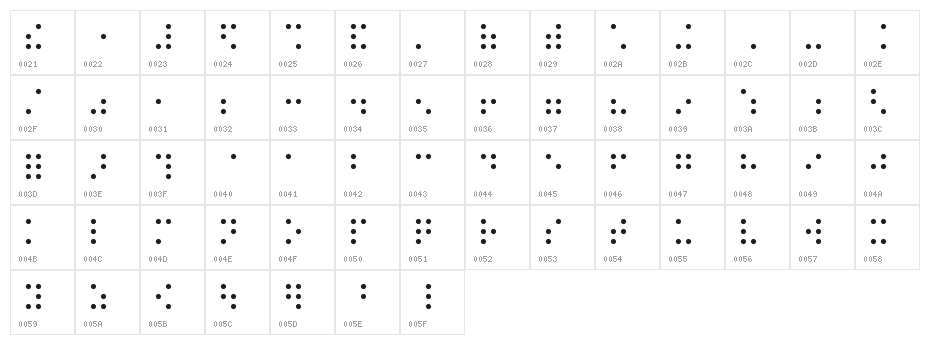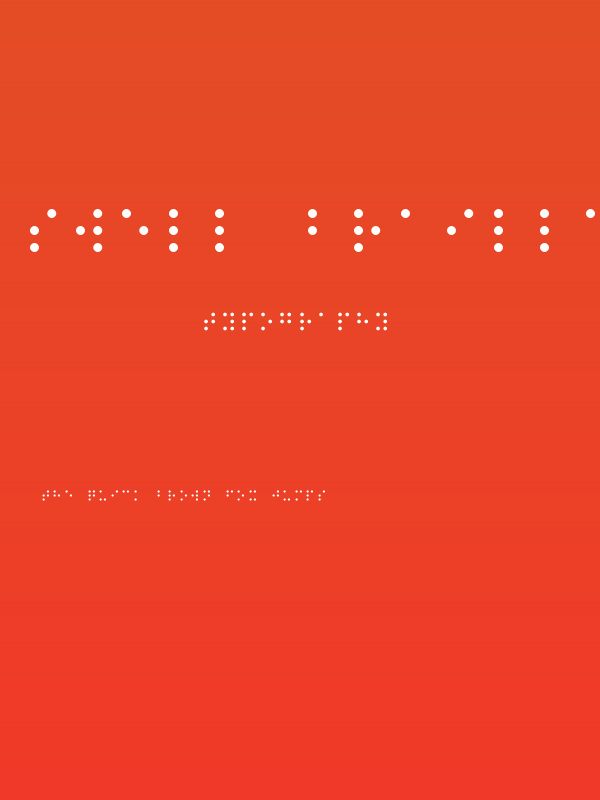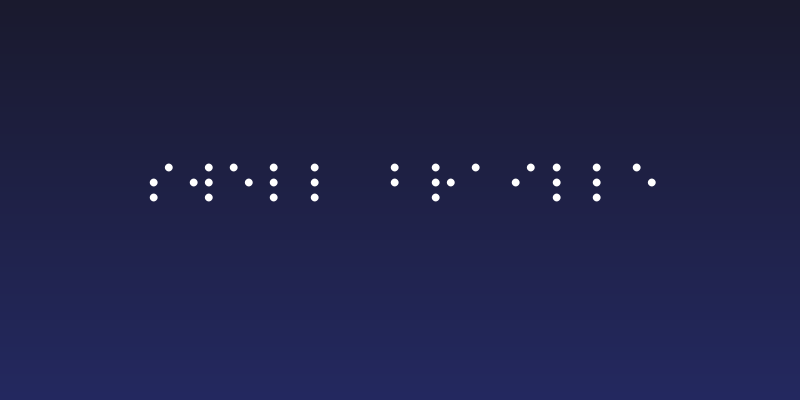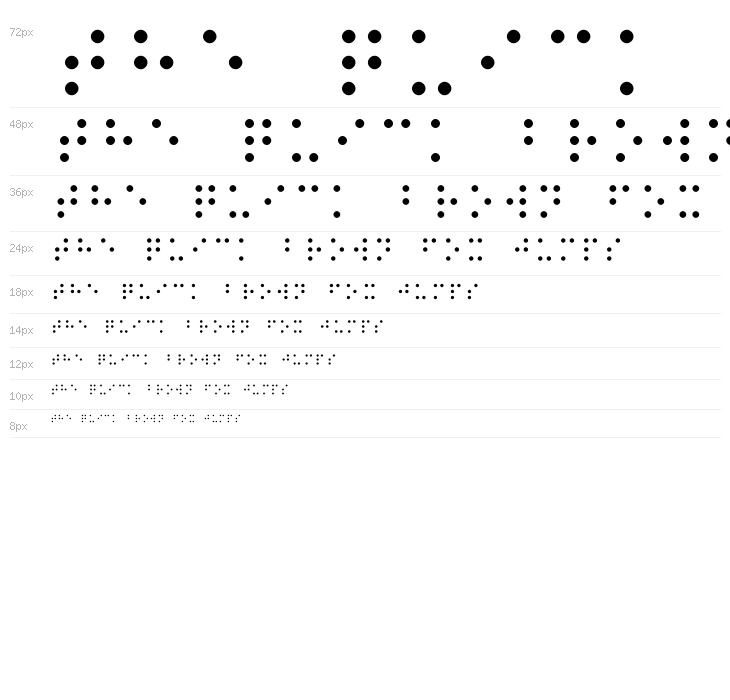
Swell Braille Font
Swell Braille Description
This image represents Braille, a tactile writing system used by people who are visually impaired. It consists of patterns of raised dots arranged in cells of up to six dots in a 3x2 configuration. Each cell represents a letter, numeral, or punctuation mark. The system is designed to be read by touch, with each character easily distinguishable by the fingertips. Braille is an essential tool for literacy and communication among the visually impaired community.
| Overall Style | Functional |
| Use Case | Accessibility, Education, Signage |
| Proposed Projects | This system is ideal for creating accessible reading materials, signage, and educational tools for the visually impaired. |